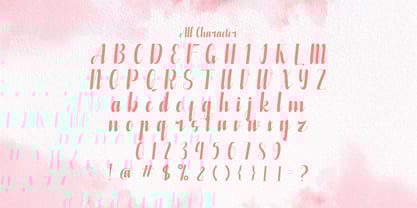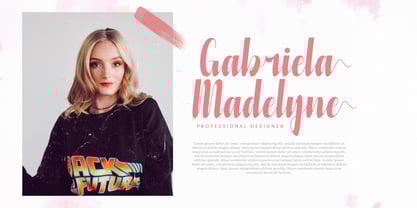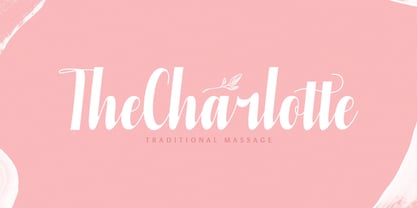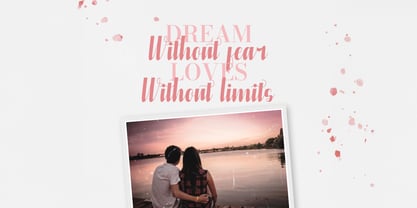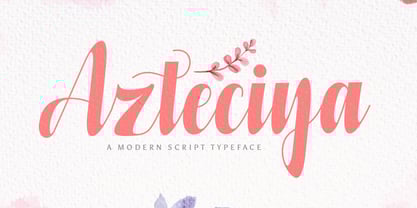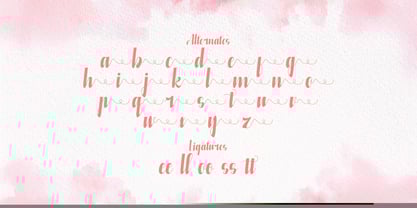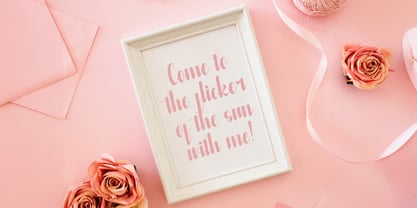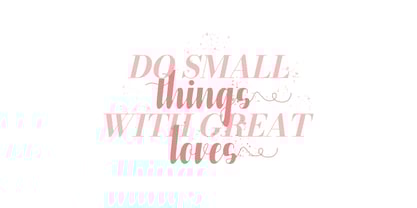
The Azteciya Font Family was designed by Virgiawan Listanto and published by Stringlabs Creative Studio. Azteciya contains 1 styles. More about this family
Azteciya is a unique handwritten font with a bold personality and artistic flair. Inspired by creative expression and freeform writing, its dynamic strokes and organic flow bring energy and authenticity to any design. Whether you're crafting standout branding, expressive quotes, or stylish social media graphics, Azteciya adds a creative edge that’s raw, modern, and unforgettable.
Designers: Virgiawan Listanto
Foundry: Stringlabs Creative Studio